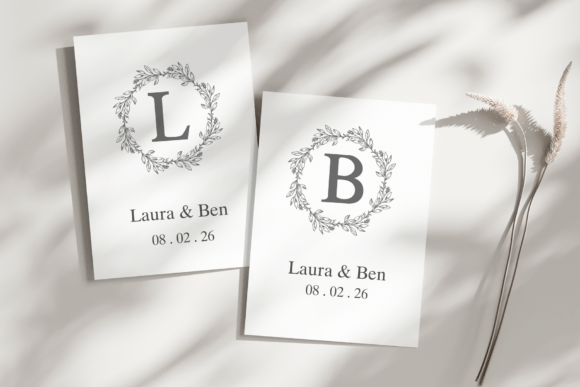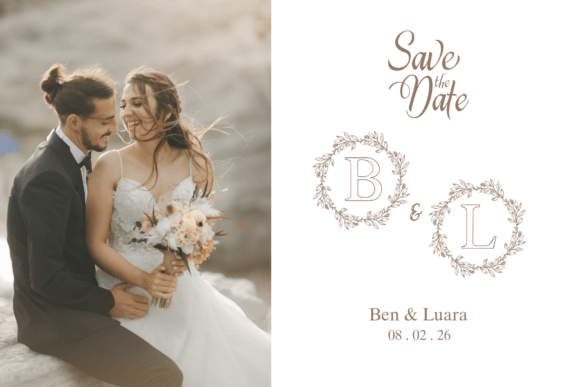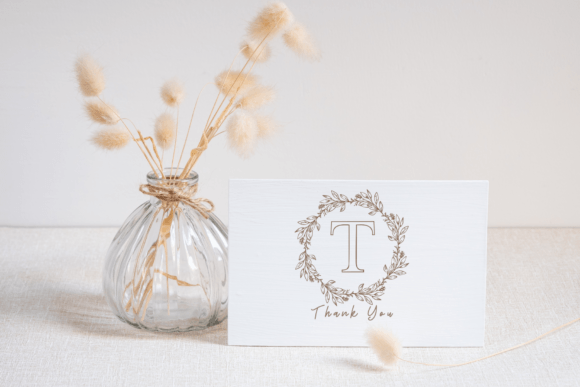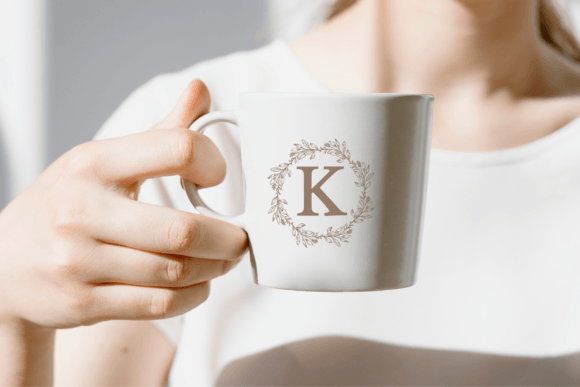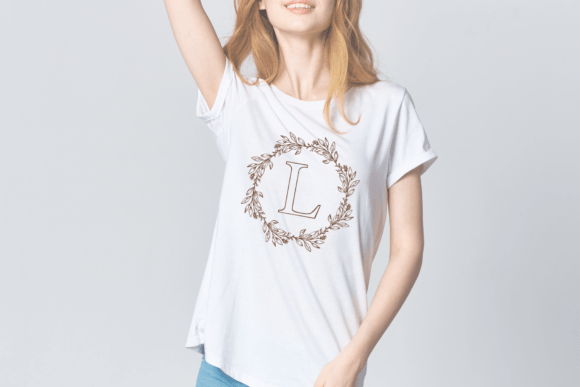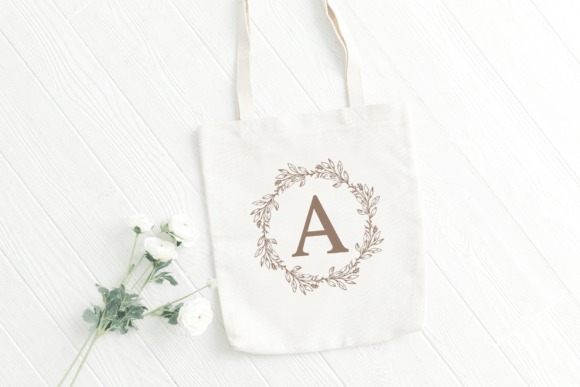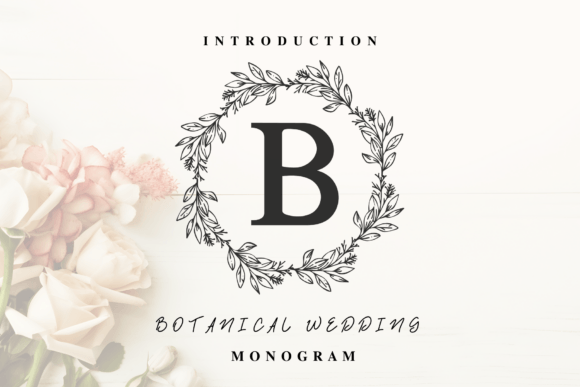
Designing Love: The Art of Botanical Wedding Monogram Font
As a designer, there’s something magical about bringing a couple’s special day to life with custom typography. You’re sitting at your desk, surrounded by sketches and ideas, when suddenly, a spark of creativity hits you. You envision a beautiful, elegant font that captures the essence of love and romance. This is the moment when the Botanical Wedding Monogram Font was born – a stunning combination of decorative letters and a delicate flower and leaf circle frame.
This exquisite font is perfect for invitations and wedding cards, adding a touch of charm and sophistication to any celebration. With its unique design, it’s no wonder why designers are falling in love with the Botanical Wedding Monogram Font. Whether you’re a seasoned pro or just starting out, this font is a valuable addition to your design arsenal, allowing you to create truly unforgettable wedding designs.
Botanical Wedding Monogram Font Key Features
- Unique Characteristics: The font features intricate floral patterns, leaves, and vines, creating a beautiful and unique monogram design.
- Script and Ligatures: The font includes a variety of script and ligature options, adding to its elegance and sophistication.
Designer Review: Botanical Wedding Monogram Font
✨ I was initially drawn to the unique and elegant design of the Botanical Wedding Monogram Font. The intricate details and floral elements make it perfect for creating custom wedding monograms or invitations. The font’s versatility allows it to be used in various contexts, from rustic to sophisticated settings. The wide range of customization options, including color and size adjustments, also makes it appealing for designers.
✨ Another strength of this font is its scalability. Whether used for small, intricate designs or large, bold statements, the Botanical Wedding Monogram Font maintains its beauty and readability. This makes it an excellent choice for various design projects, from wedding stationery to event branding.
Limits and Considerations
⚠️ One limitation of the Botanical Wedding Monogram Font is its complexity. The intricate details and delicate lines may not be suitable for all design projects, particularly those with a simpler or more modern aesthetic. Additionally, the font may require more time and effort to set up and customize, especially for designers without extensive experience in working with ornate typography.
Overall, the Botanical Wedding Monogram Font is a beautiful and elegant addition to any designer’s toolkit. While it may not be suitable for all design projects, its unique design and customization options make it an excellent choice for those looking to create custom wedding monograms or invitations.
Recommendations
- Perfect for wedding stationery, invitations, and event branding.
- Suitable for rustic, vintage, or elegant settings.
- May not be suitable for modern or minimalist design projects.